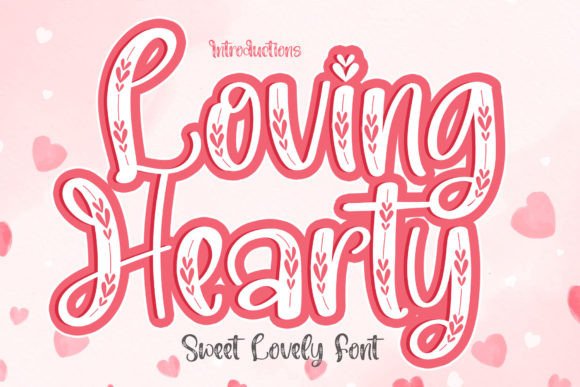
Looking for the perfect decorative font to elevate your designs to the next level? Look no further than Loving Hearty Font, created by YanStudio! This font is a beautiful and eye-catching addition to any collection, with a unique style that is perfect for a wide range of creative projects.
With its charming and playful design, Loving Hearty is the perfect choice for anyone looking to add a touch of personality to their designs. Whether you're creating a new logo for your business, designing a beautiful wedding invitation, or crafting a stunning magazine spread, Loving Hearty is the best font style for business that will help you achieve your creative vision.
One of the most exciting things about Loving Hearty is its versatility. This decorative font works well with a wide range of other design elements, making it easy to incorporate into any project. Plus, with its bold and distinctive design, Loving Hearty is sure to catch the eye of anyone who sees it.
If you're looking for a font that is both beautiful and functional, Loving Hearty is the perfect choice. This font is perfect for everything from greeting cards to website design, and it's sure to make a lasting impression on anyone who sees it.